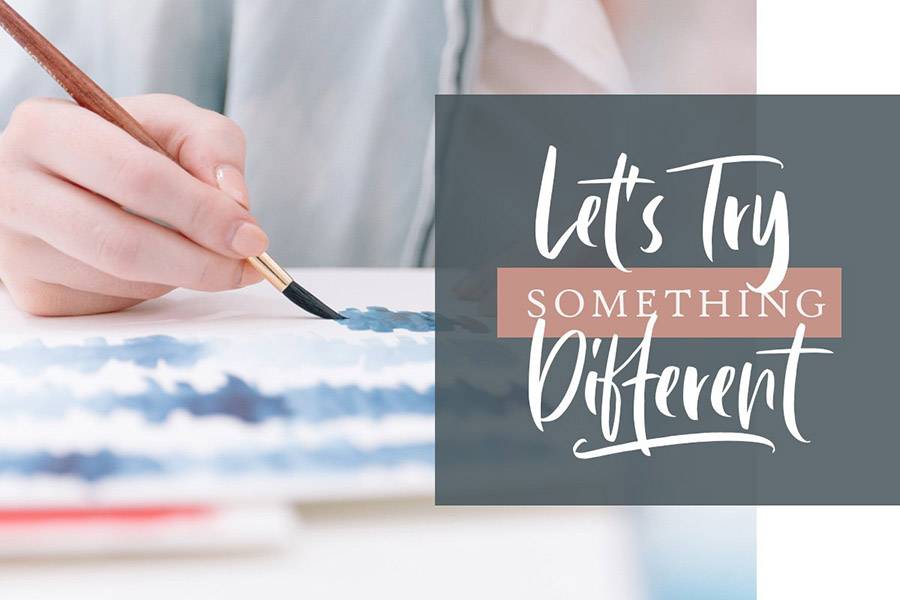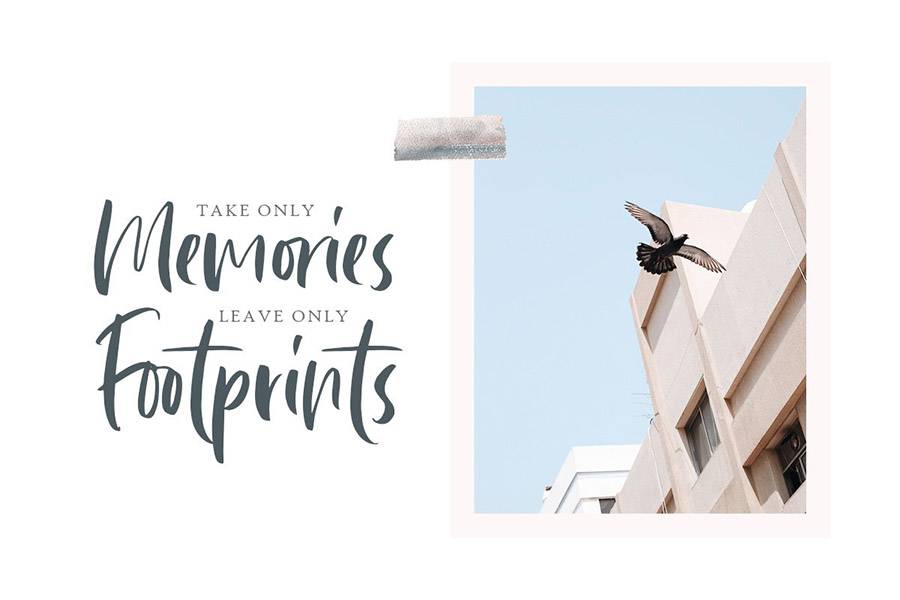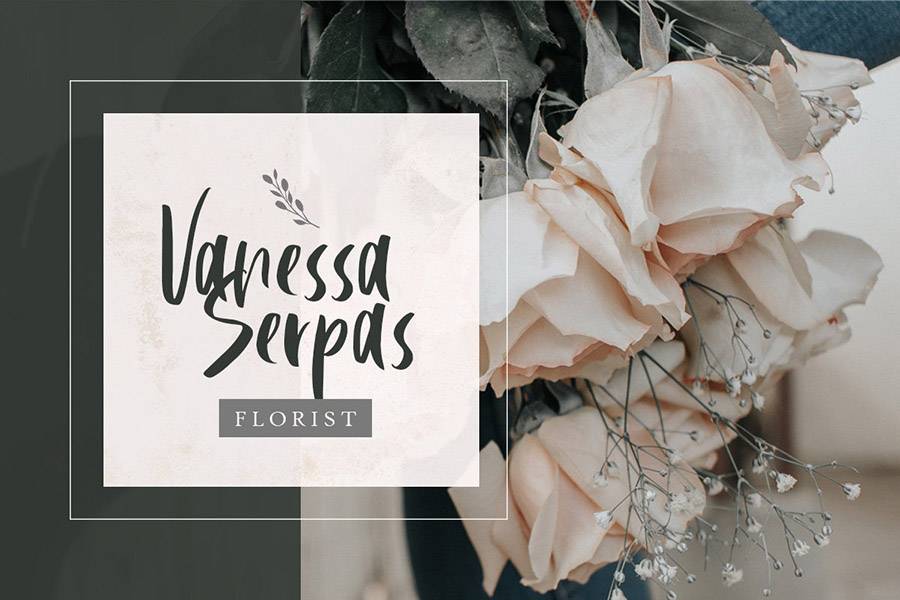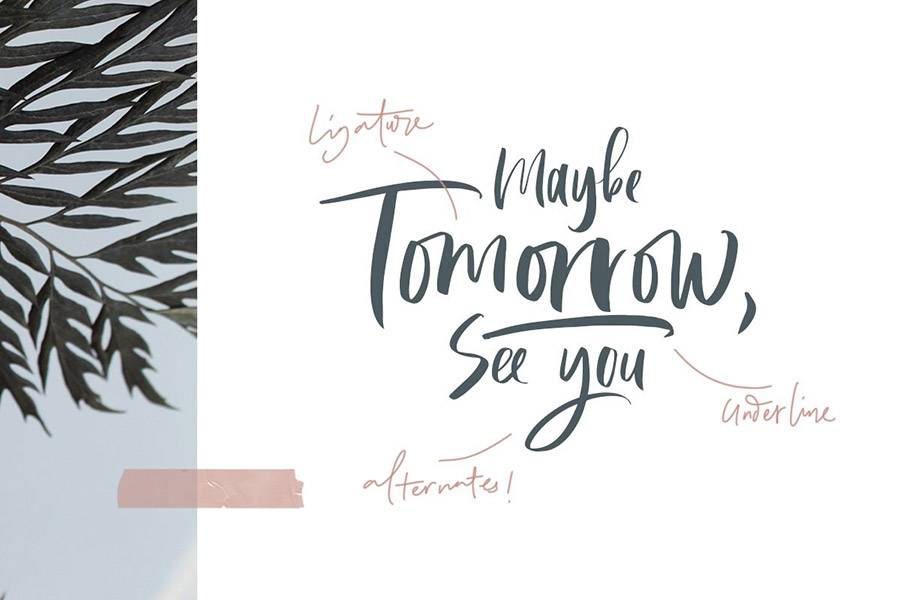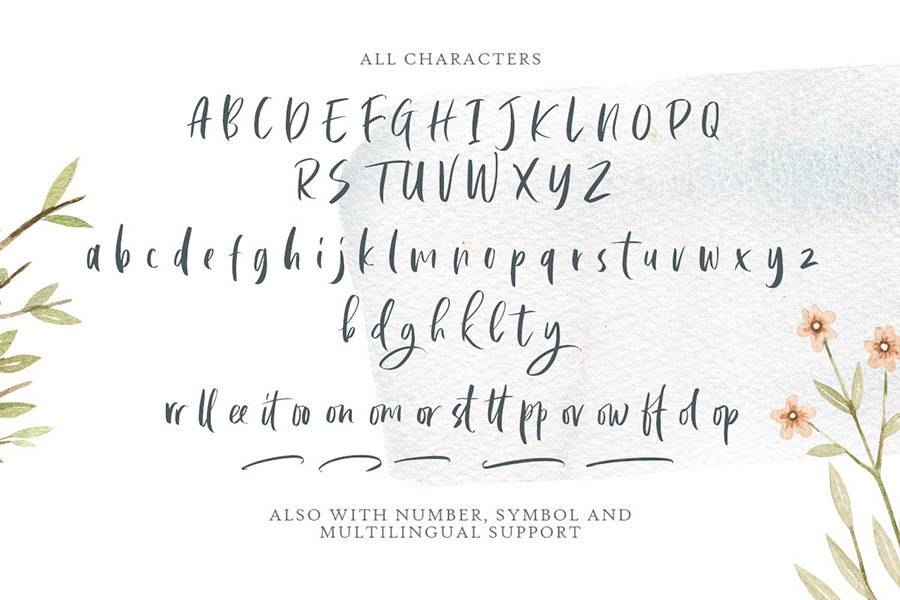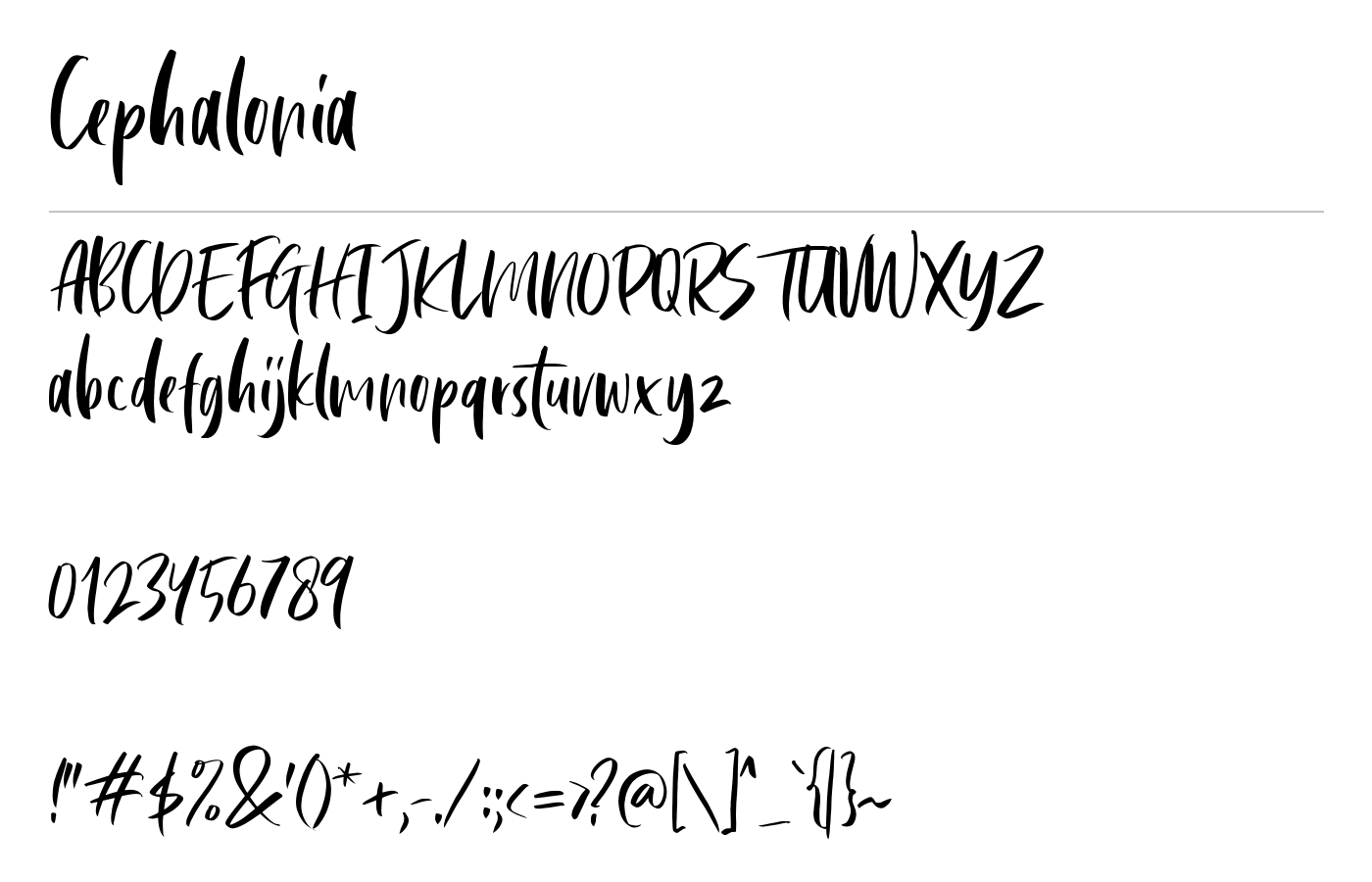
Cephalonia Handlettering Font is a lively and expressive script with a natural, hand-drawn feel, featuring slender, slightly irregular strokes that give it a charming, casual elegance. Its tall x-height and varying stroke widths create an energetic yet readable style, making it perfect for adding a personal, artistic touch to branding, invitations, and creative projects that seek warmth and individuality. This font works especially well in headlines or display uses where a friendly, handcrafted vibe is desired.
Cephalonia Handlettering Font
About Cephalonia Handlettering Font